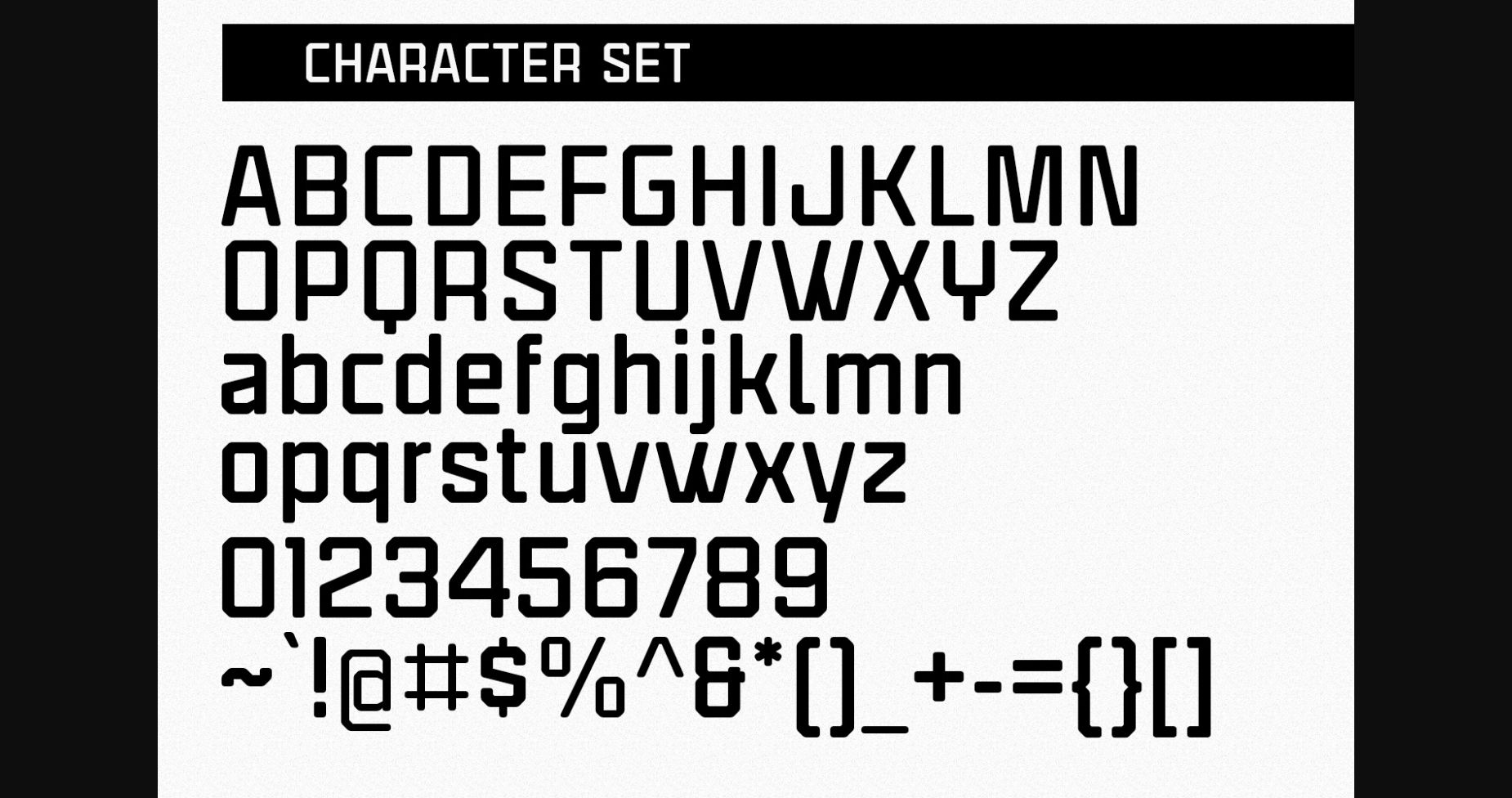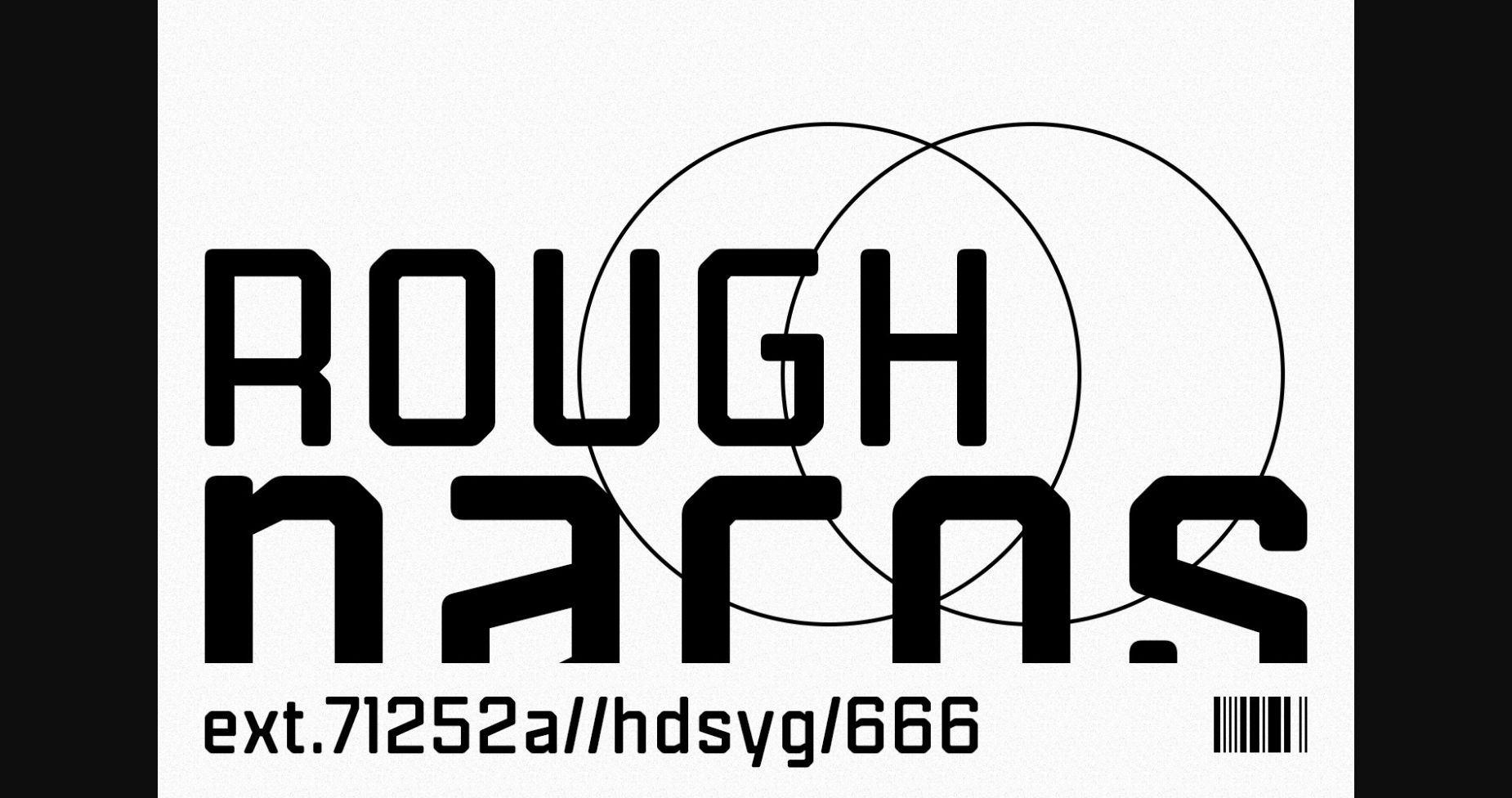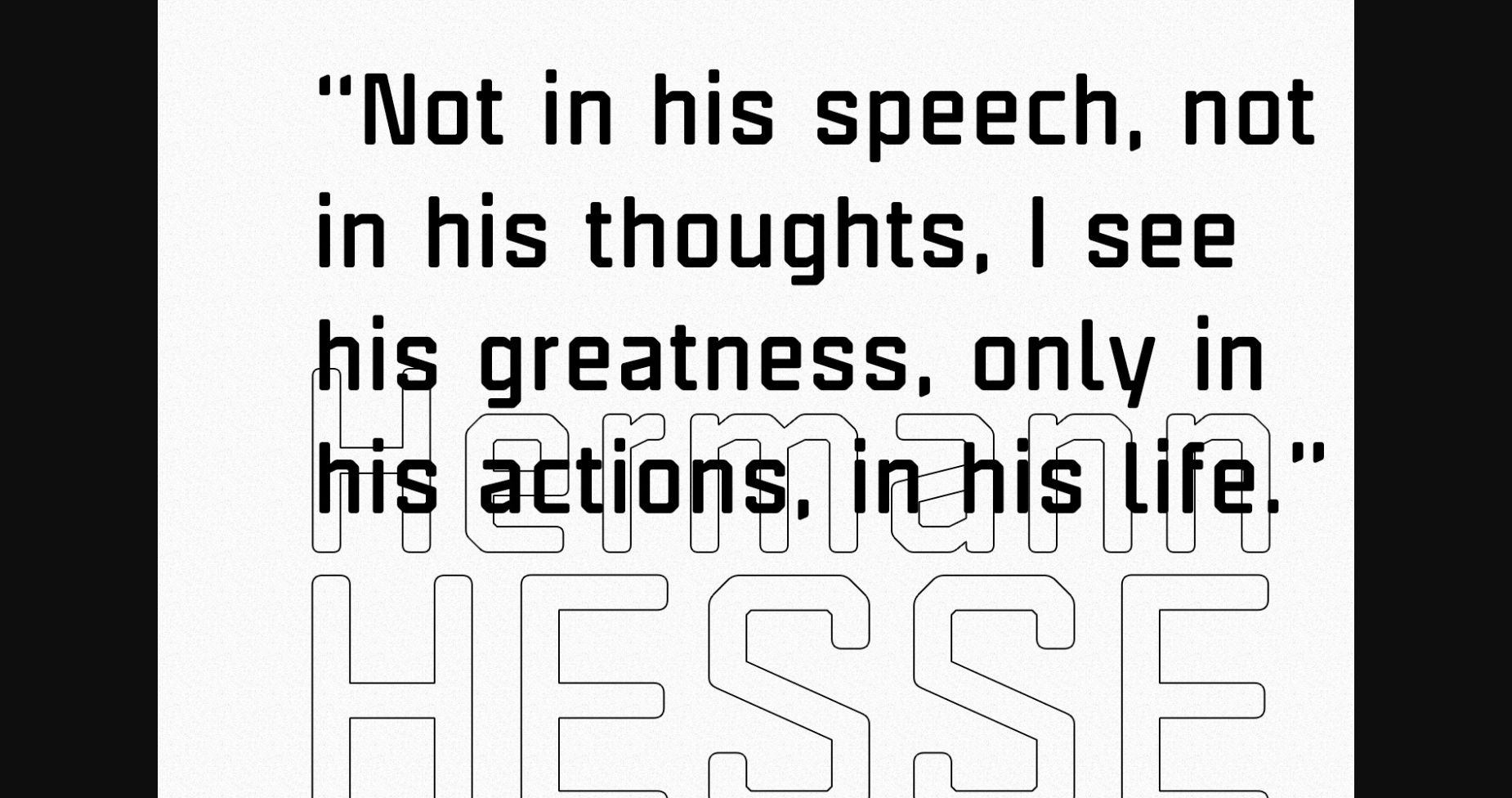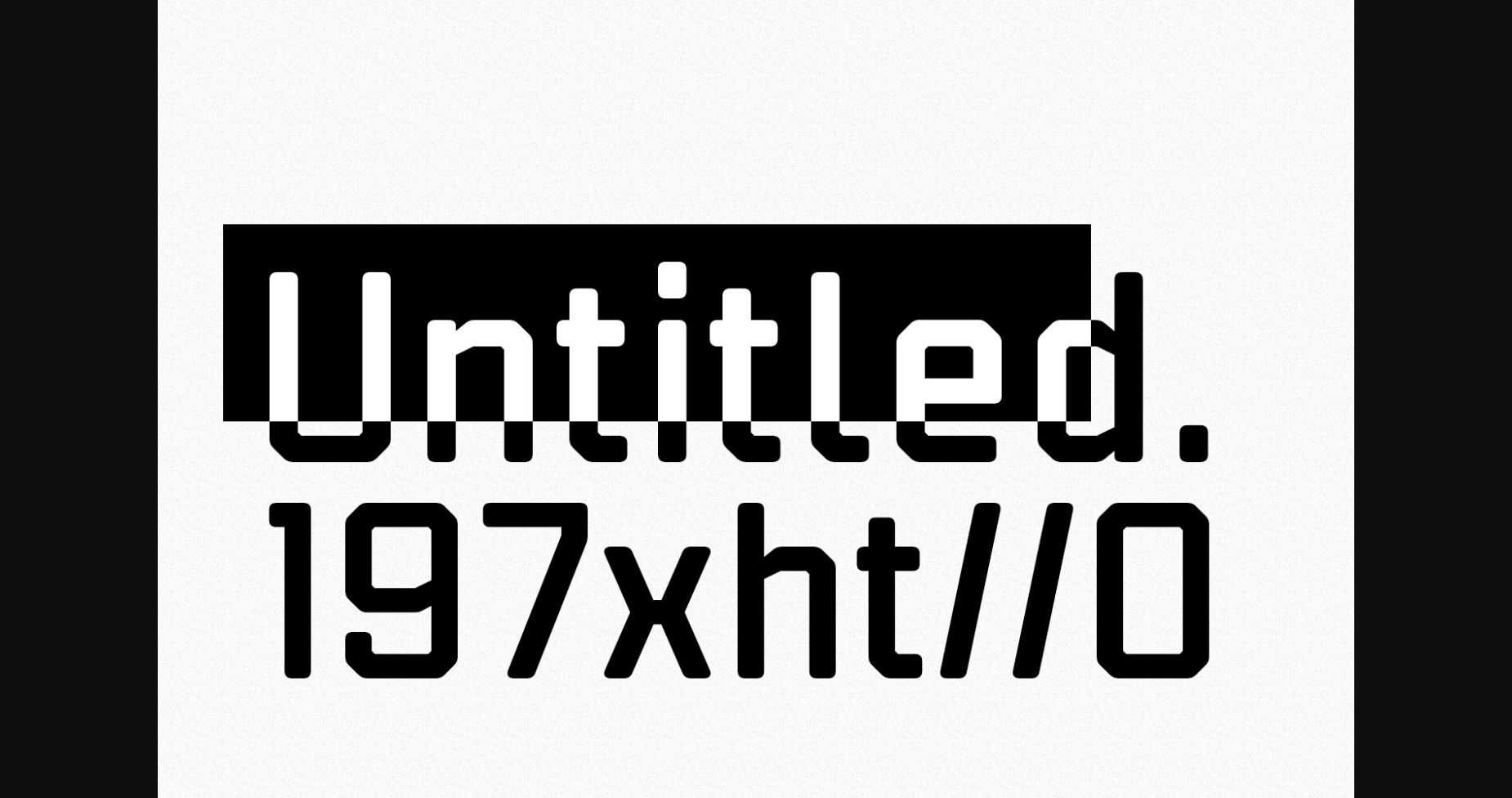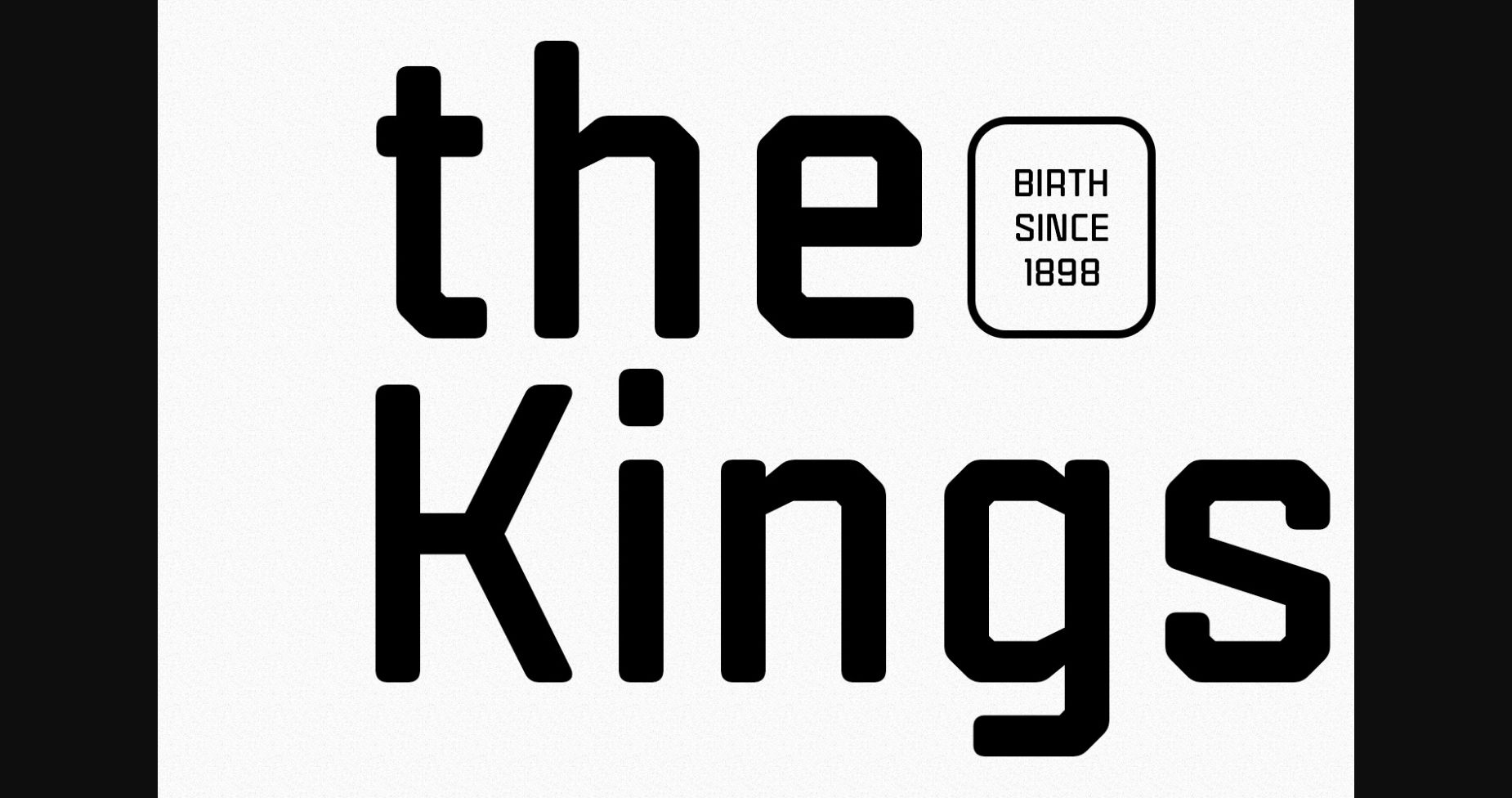
About Mathics Round Font
Mathics Round is an Industrial sans serif font featuring soft-rounded edge strokes, fun characters, and ligatures to give you a creative boost. This font is great for logo design, social media, movie and book titles, short text, even long text. It also works great for secondary text, together with a script or signature font.
Make stunning work with the Mathics font!